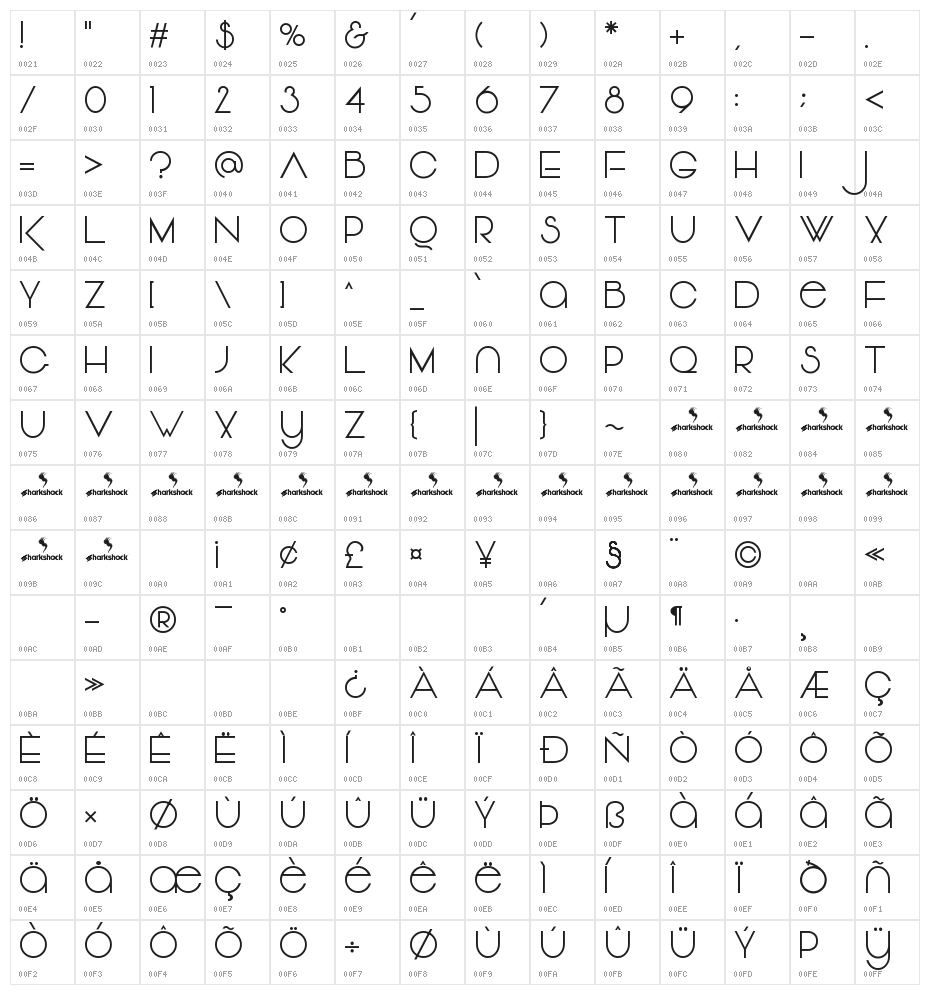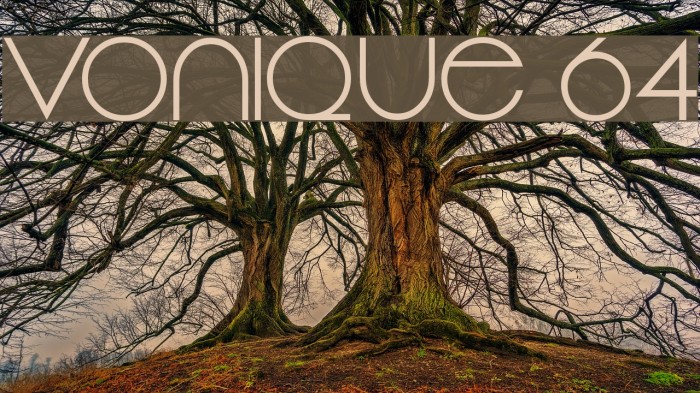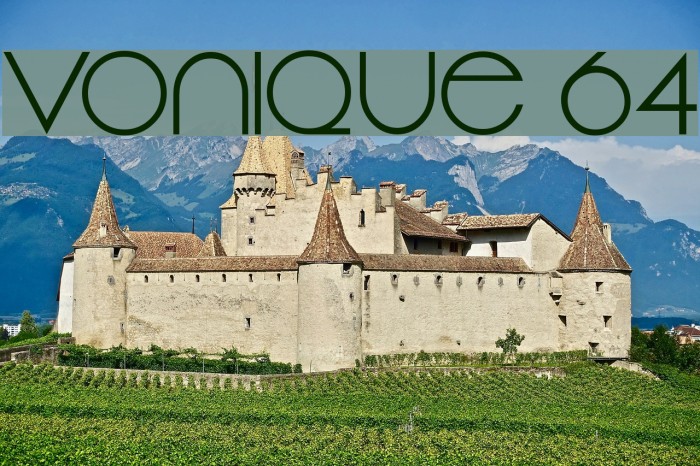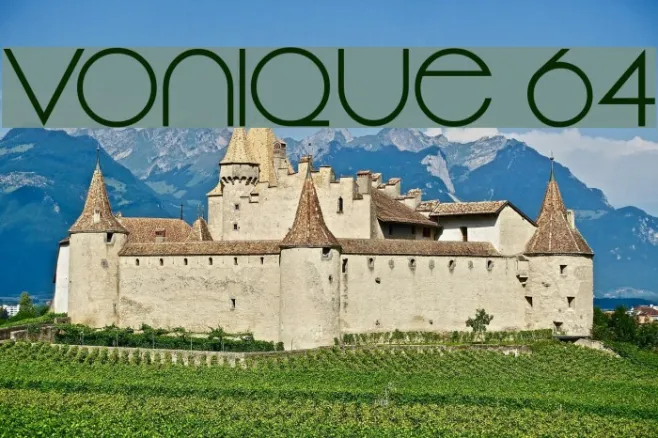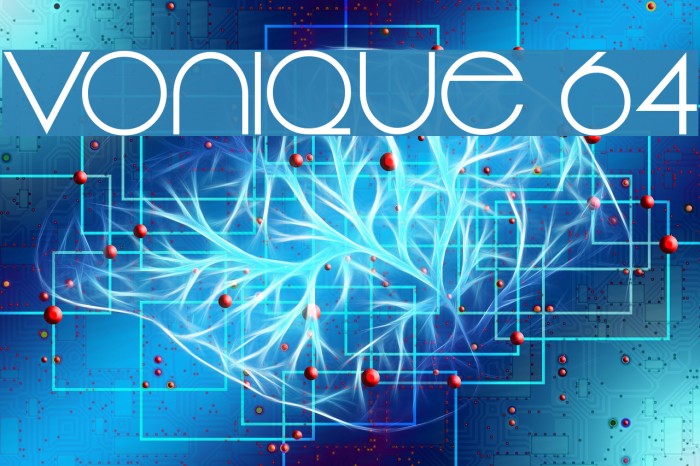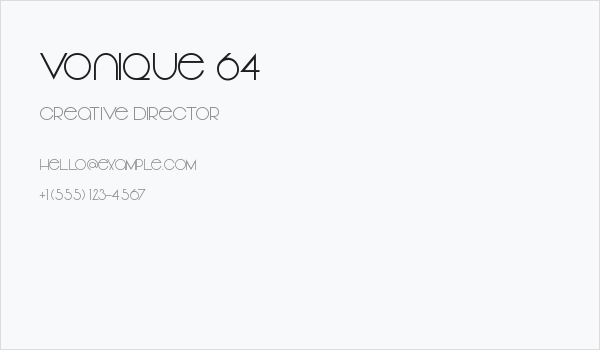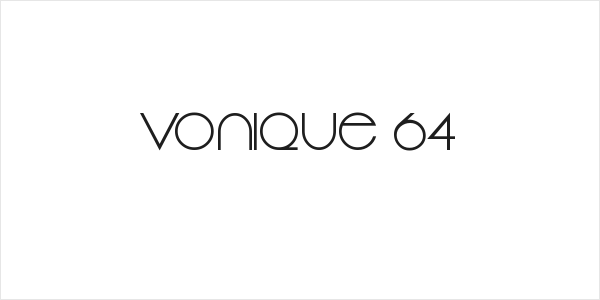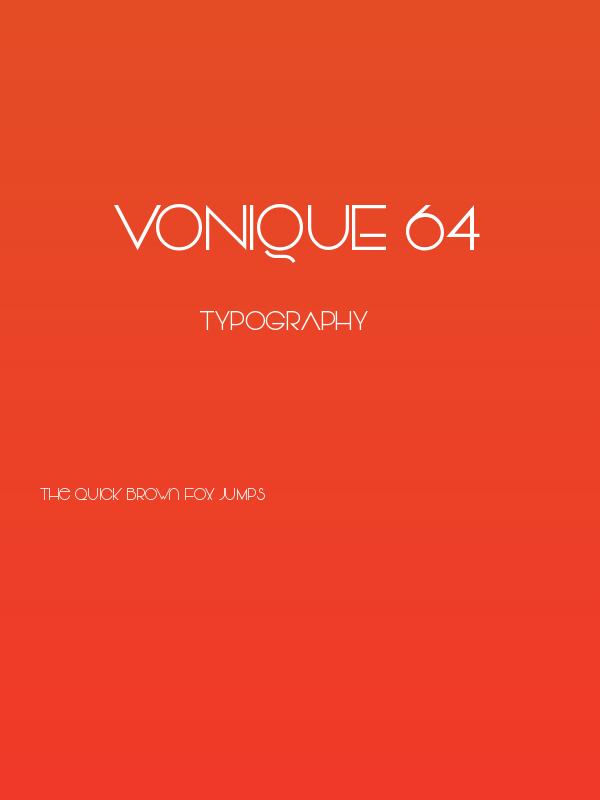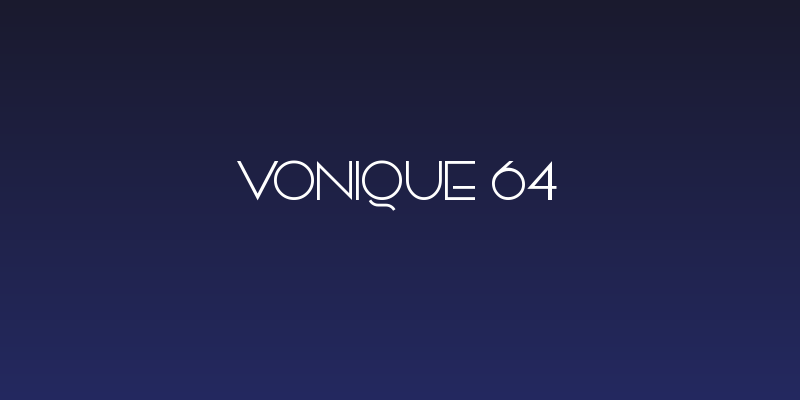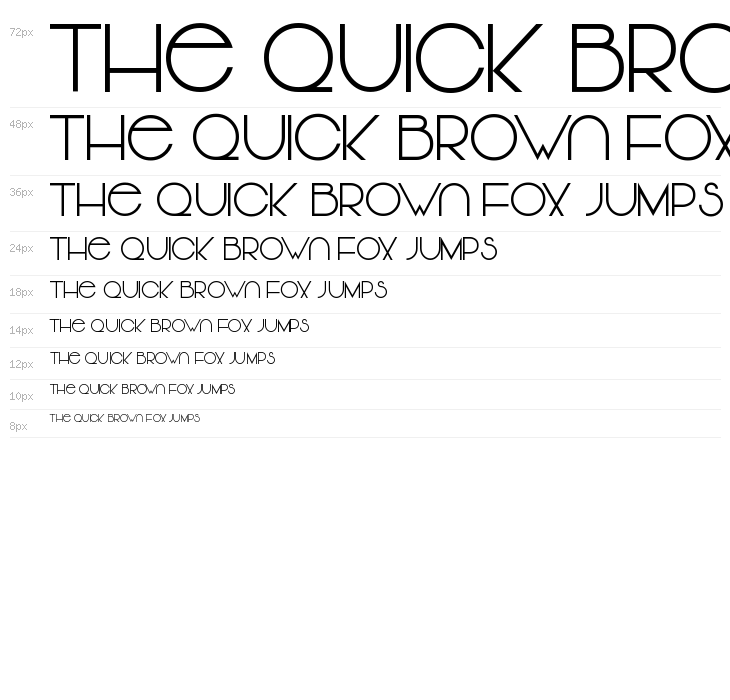
Vonique 64 Font
Vonique 64 Description
This font features a sleek, geometric design with a modern aesthetic. The characters are composed of clean lines and sharp angles, giving it a futuristic and minimalist feel. The uppercase letters are particularly striking, with unique shapes that stand out, while the lowercase letters maintain a consistent style. The numerals and special characters are designed to complement the alphabet, maintaining the overall sleek and modern look. This font is ideal for projects that require a contemporary and stylish appearance.